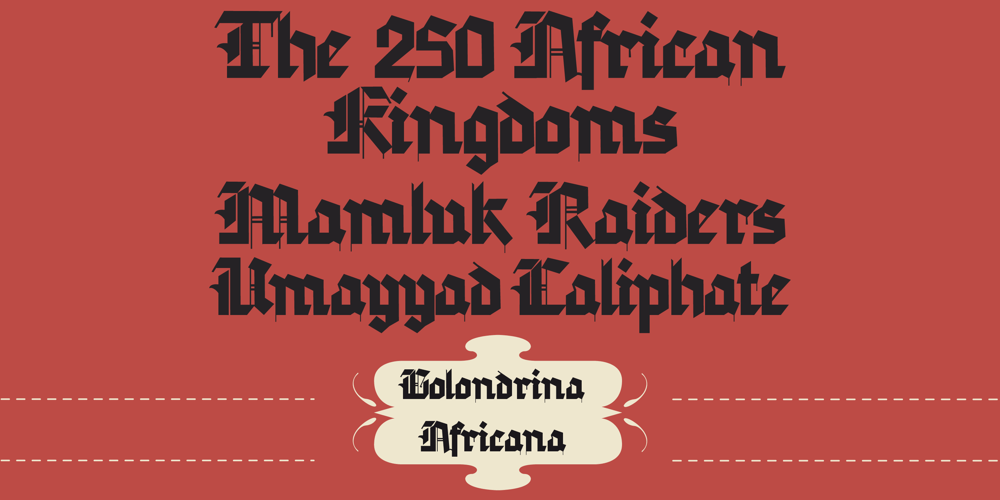
Golondrina Font Family was designed by published by LFCF. Golondrina contains 2 styles and family package options. Golondrina, spanish for swallow, a bird that cannot carry a coconut but migrates form north to south like the angles in this font. Also, like the bird, Golondrina can adaptate to different needs, going from a traditional blackletter with small lowcase characters and ornamental capitals, to a hardcore uppercase and sharp small caps. The right font for designs with a medieval, traditional spirit or a coarse lettering for a Heavy metal band.